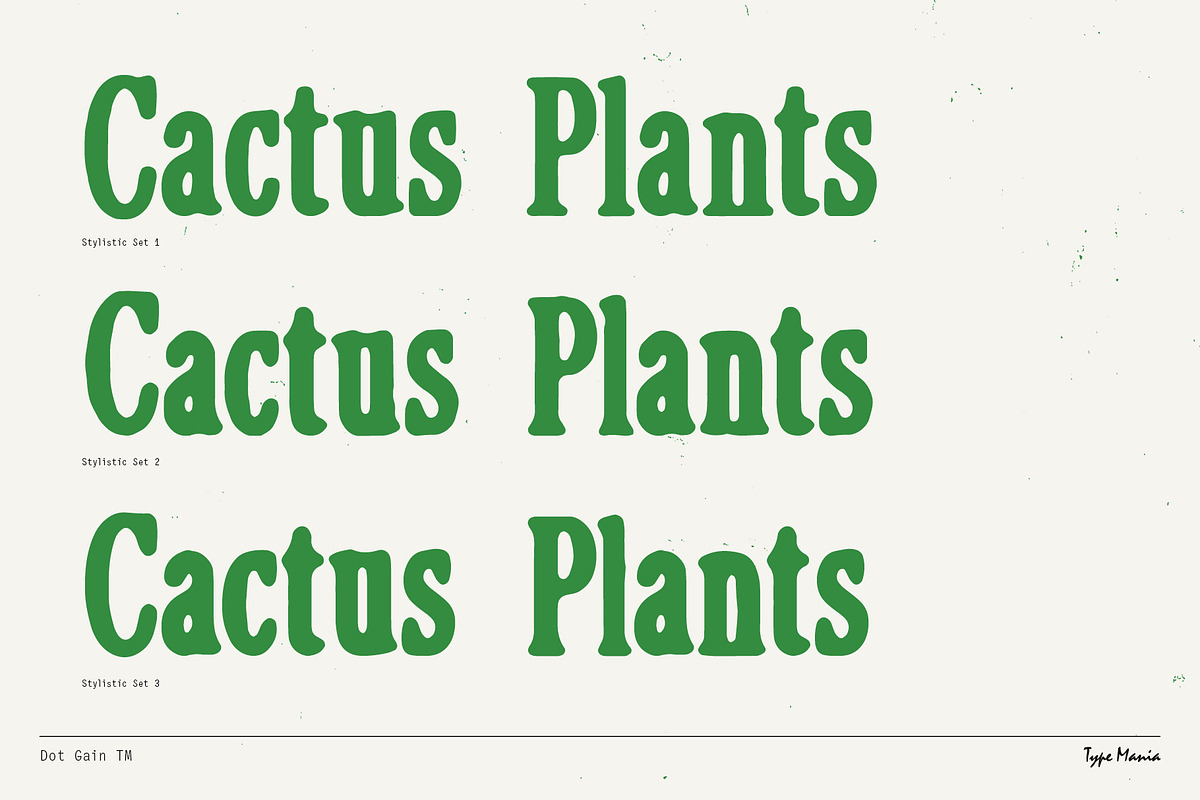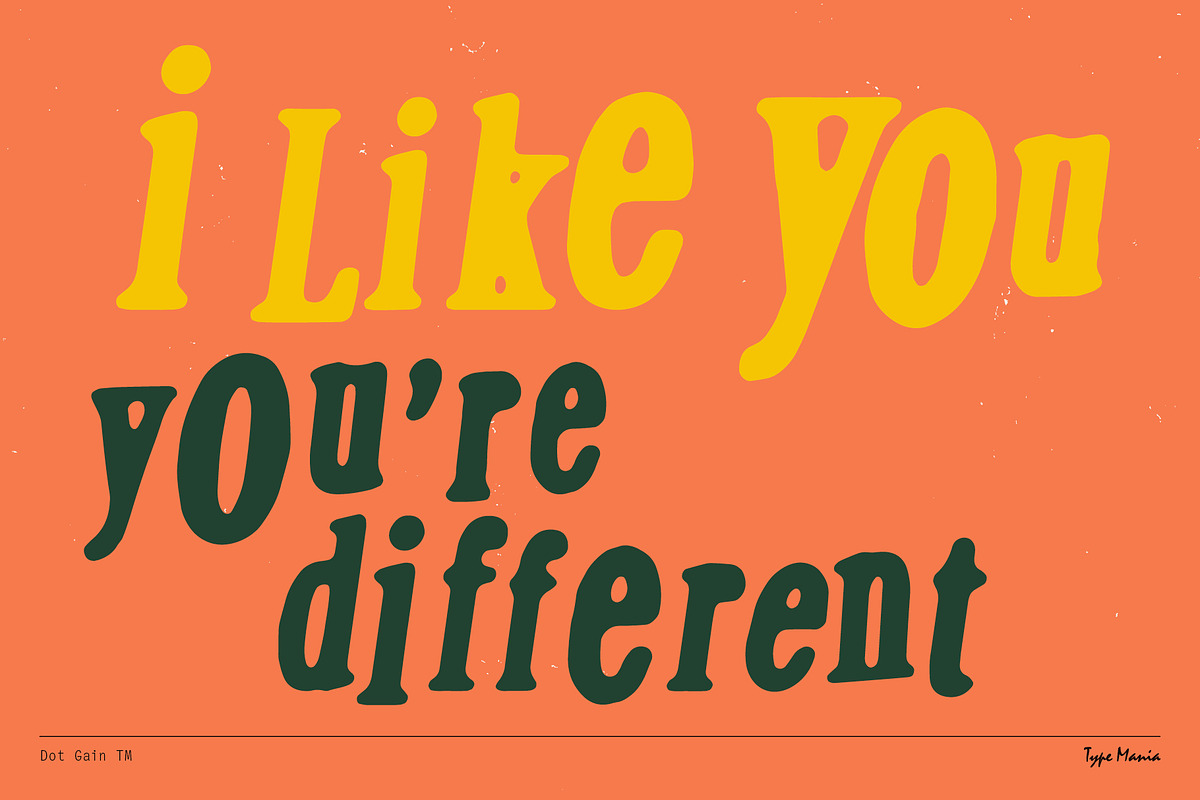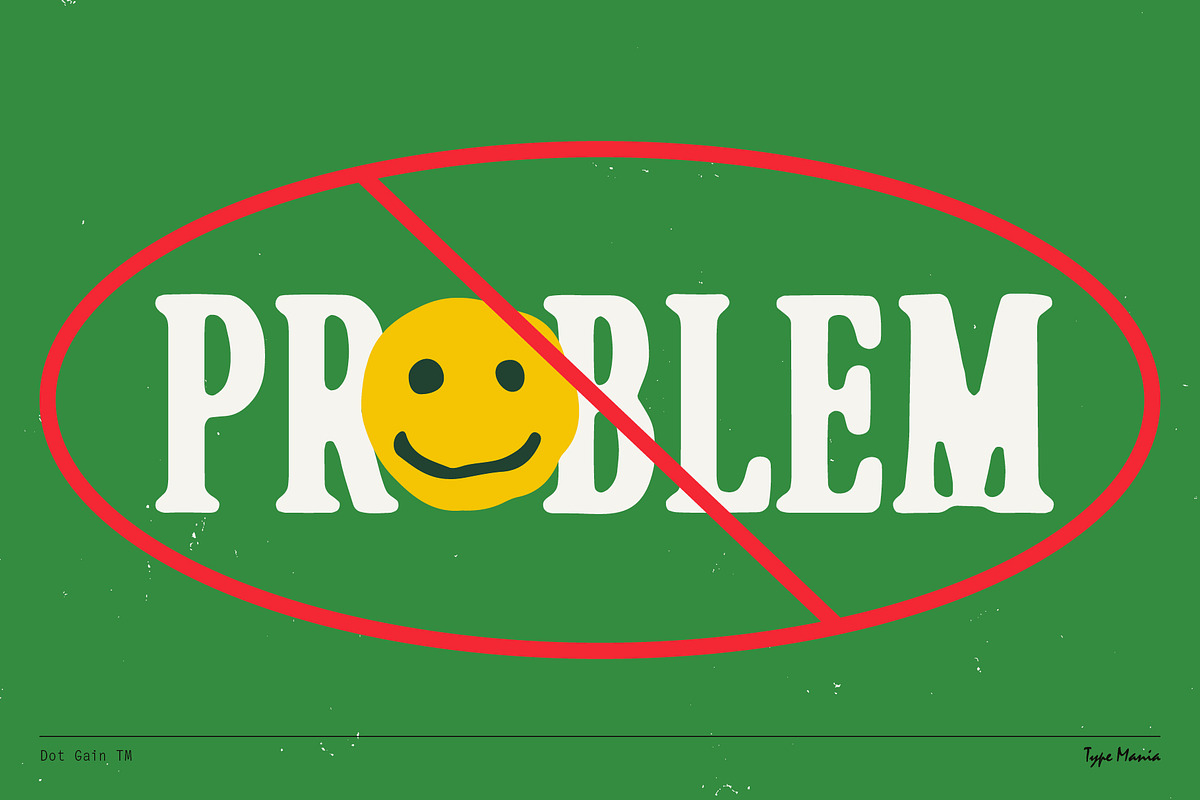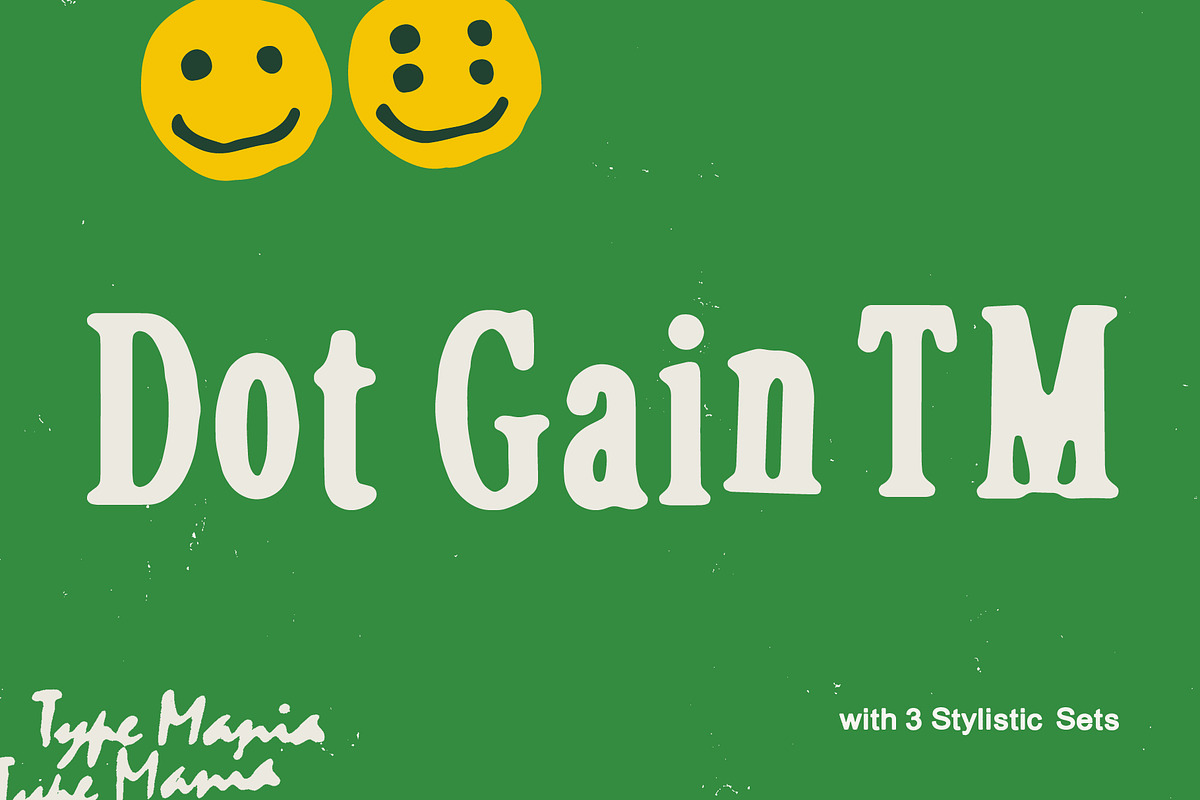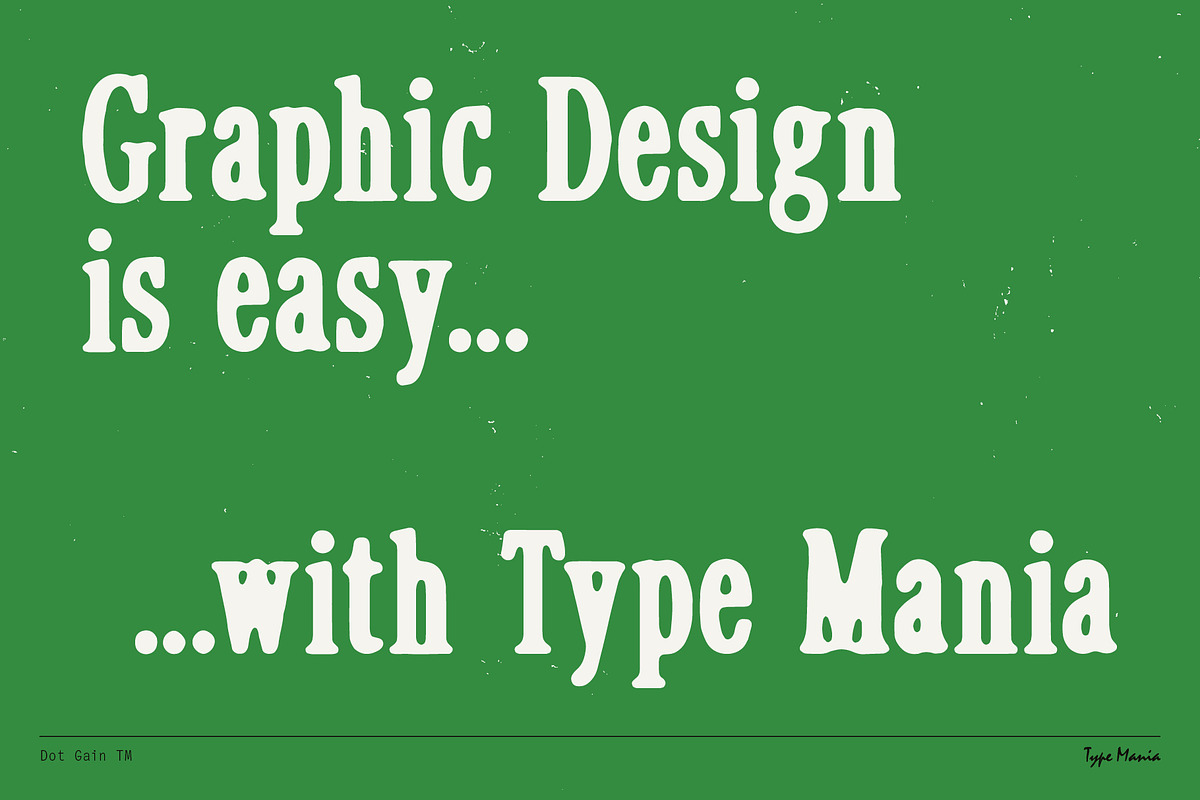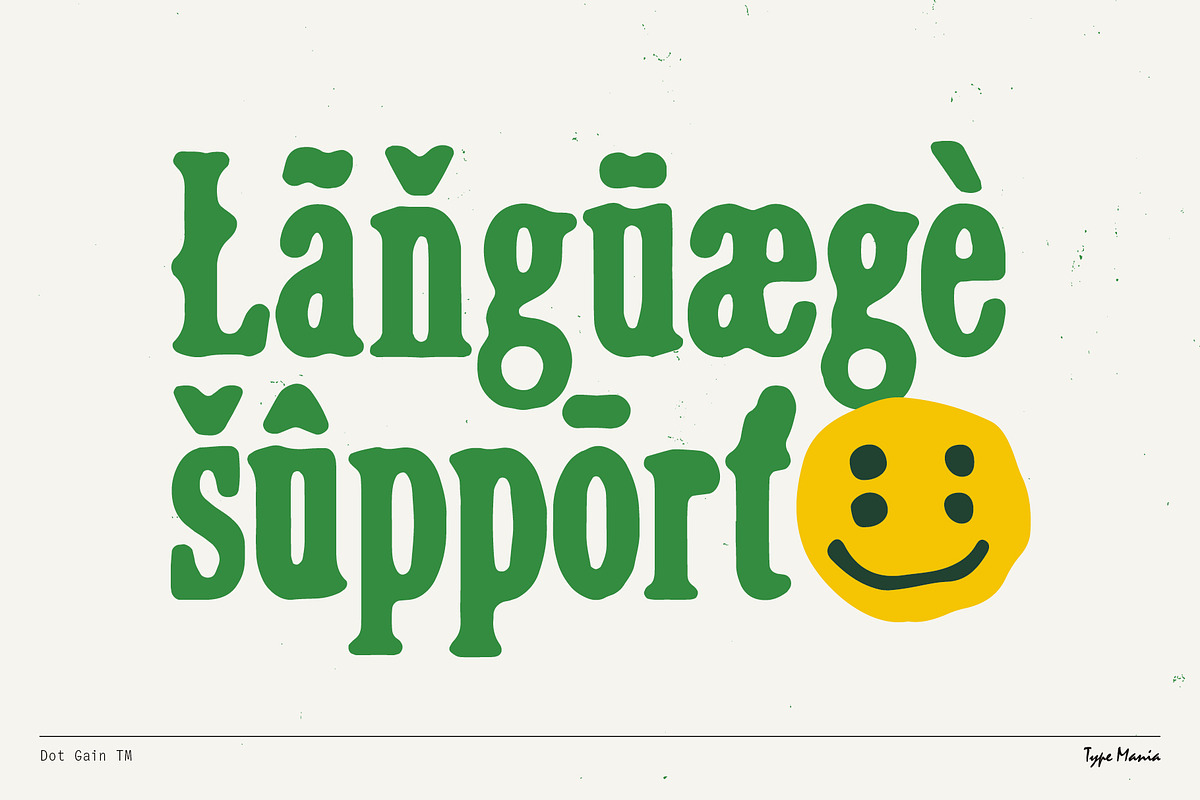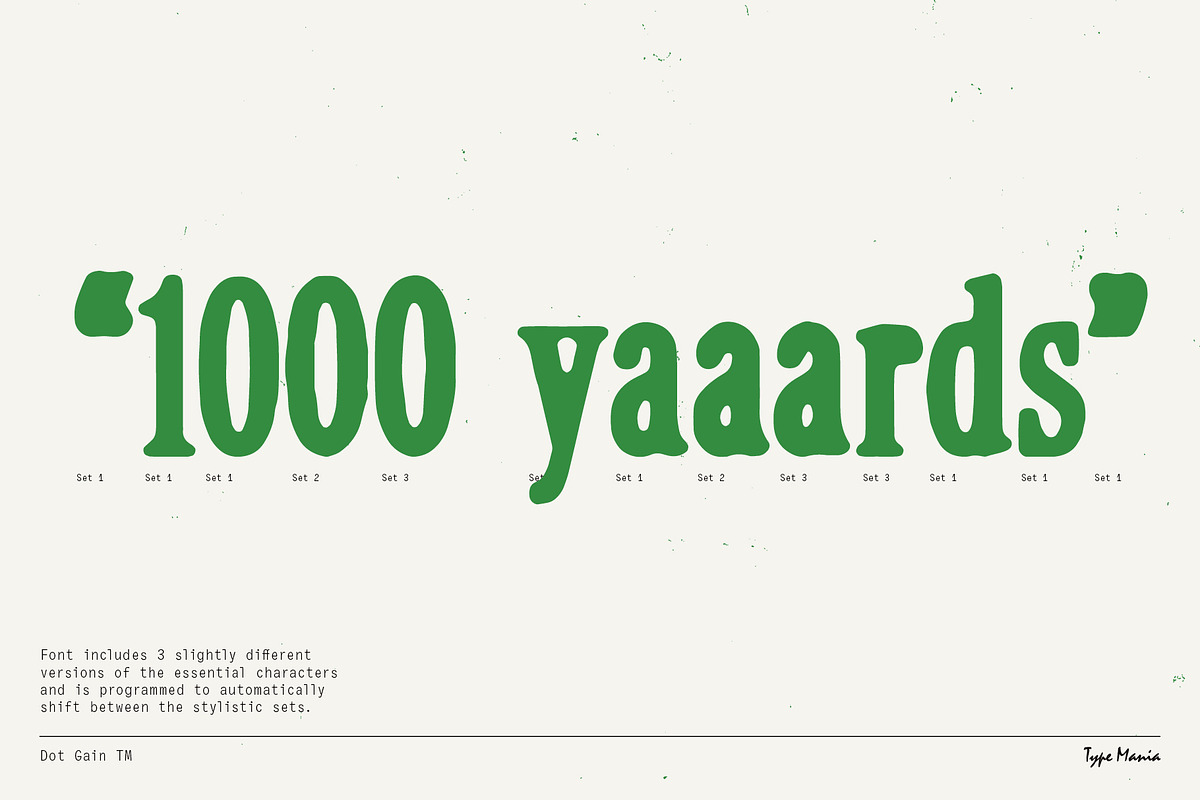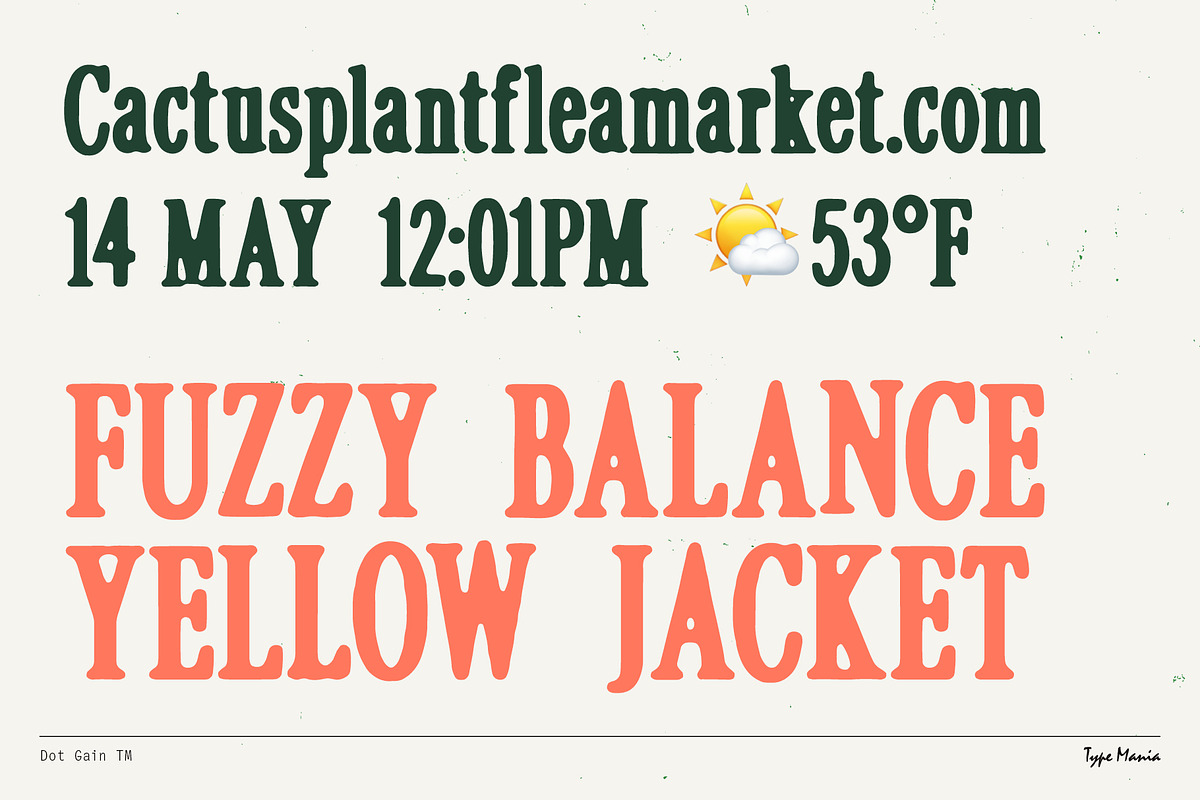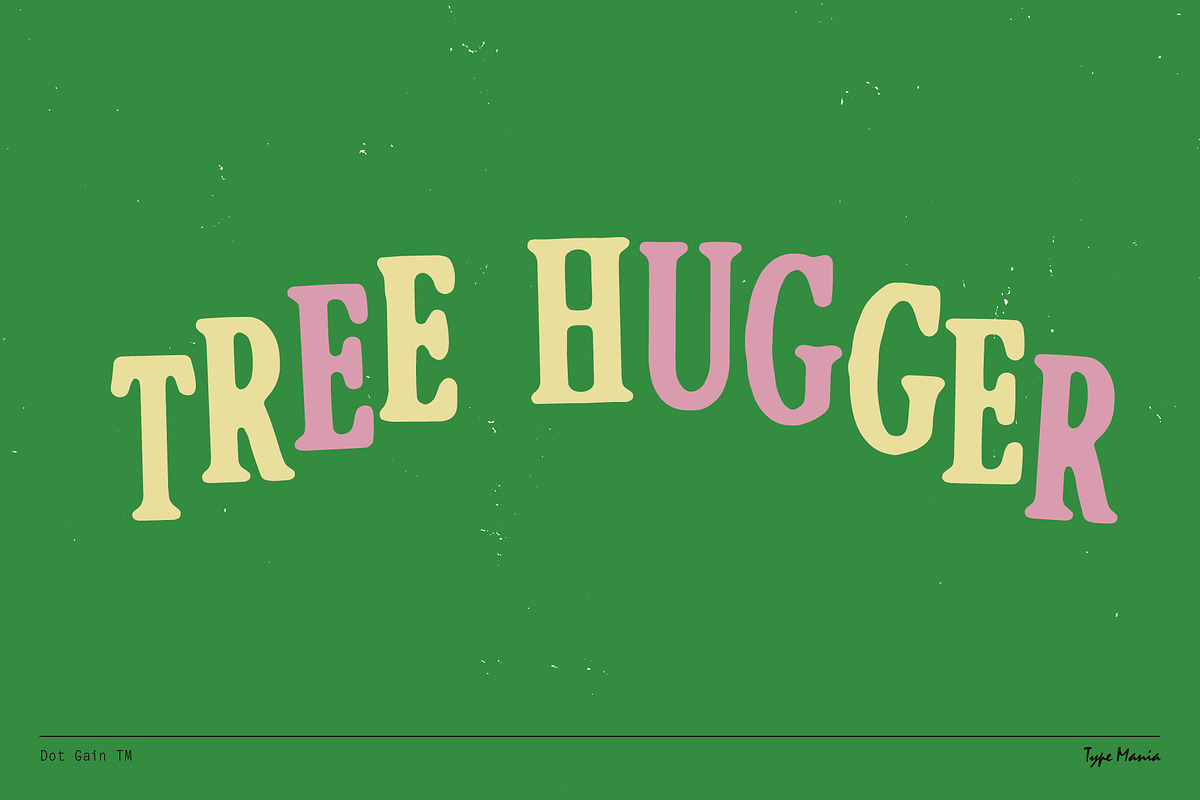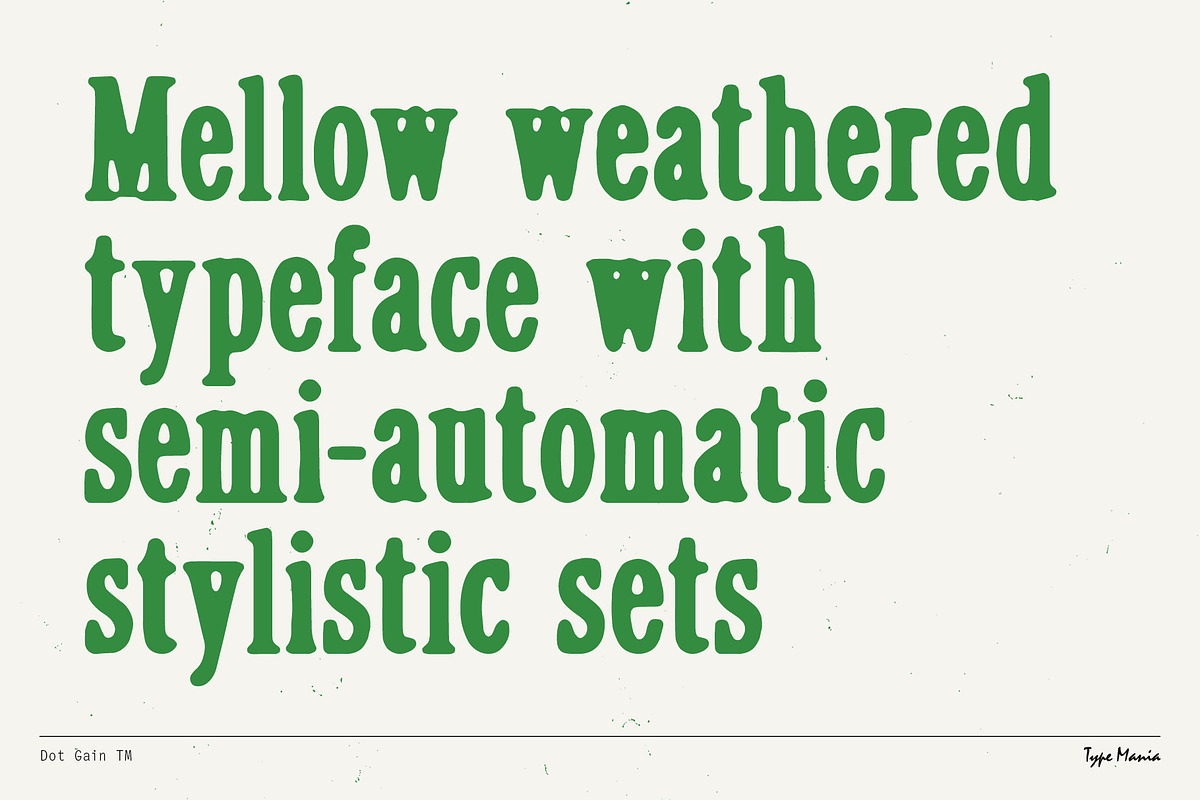
Dot Gain TM – Cozy Serif
Get cozy with Dot Gain TM. Inspired by the gentle imperfections of yesteryears' printing presses, Dot Gain TM captures the essence of a bygone era with its scruffy appearance, yet remains unmistakably contemporary, offering a nod to the past with a modern twist (–‿♥)
OpenType features
- 3 stylistic sets
- The font is programmed to automatically shift between the stylistic sets whenever the same glyphs are typed side by side